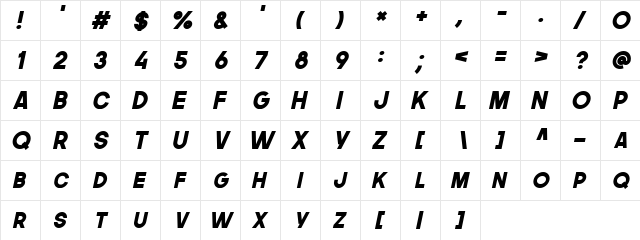
Duldolar Regular
| Foundry | Mochtype |
| Designer | Mochtype |
Design Context for Duldolar Typeface
Duldolar takes a measured approach to typography — its balanced proportions and neutral character make it a reliable workhorse for both digital and print work.